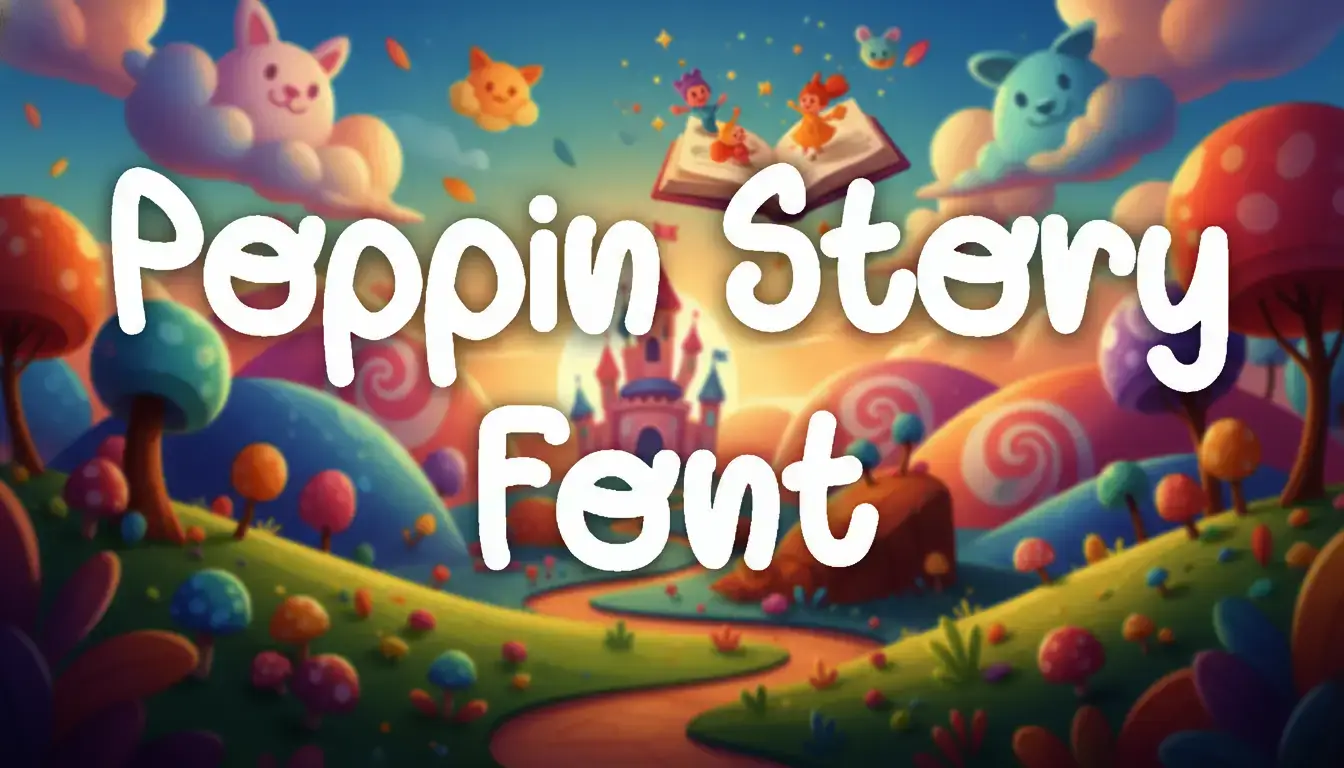
Poppin Story Font
Poppin Story
Poppin Story is a comic font created by MODESTYPE TEAM and released through MODESTYPE. It has a cheerful, hand-drawn look that makes people smile before they even read the words. You can download it for free and test it with your own words in the preview above.
- Category: Comic font
What You Can Type With Poppin Story
With complete upper and lowercase letters and all ten digits, Poppin Story is ready for real wording, not just a single headline. Common punctuation such as &, !, ? and @ is included as well. It also has the accented letters you need for Spanish, French, Portuguese and Italian.
Where Poppin Story Works Best
Think of Poppin Story for comic strips, speech bubbles and playful headings. Cartoon fonts are great for short, fun lines. If you place it over a busy photo, add a thick outline or a drop shadow so it stays readable.
Does Poppin Story support accented letters?
Yes. Poppin Story includes the accented letters needed for Spanish, French, Portuguese and Italian, so it works for more than just English.